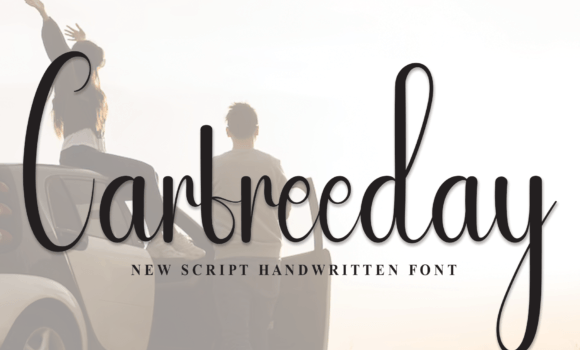
carfreeday
Carfreeday Font – Free Download Introduction to Carfreeday Font Carfreeday is a sweet and friendly handwritten font. 📸 Preview Gallery 6 images 📌 Product Name Carfreeday Font 👤 Author william jhordy 📂 Category Explore ⬇️ Download Carfreeday Font FREE Free